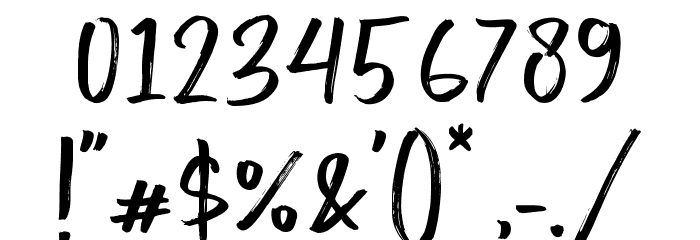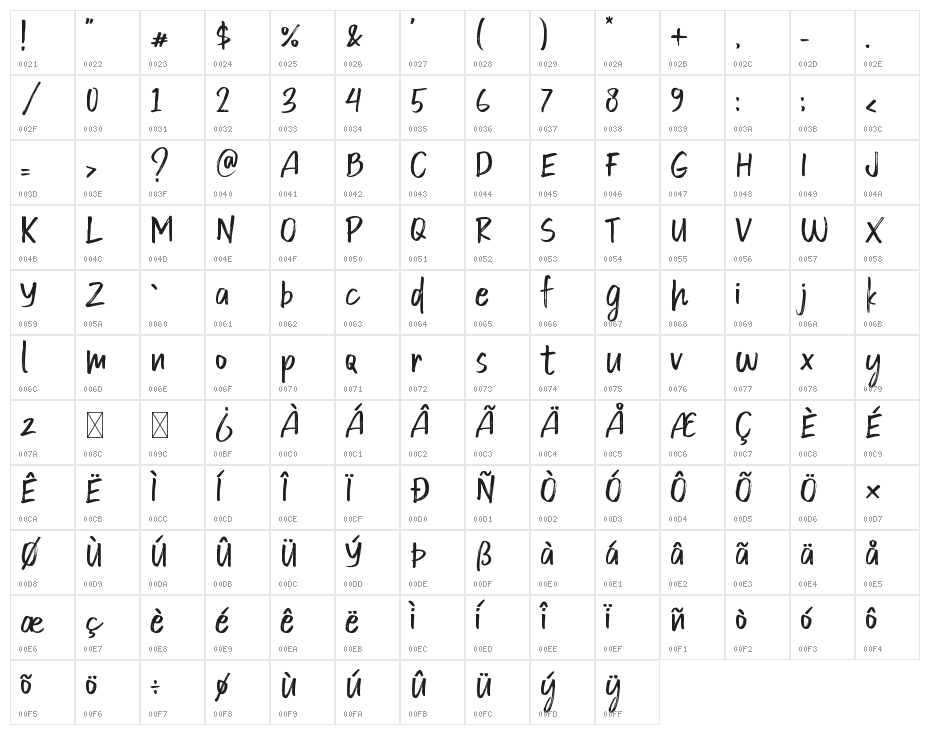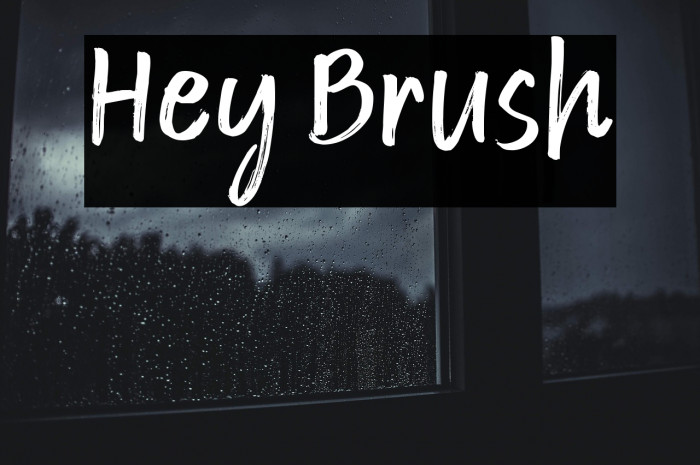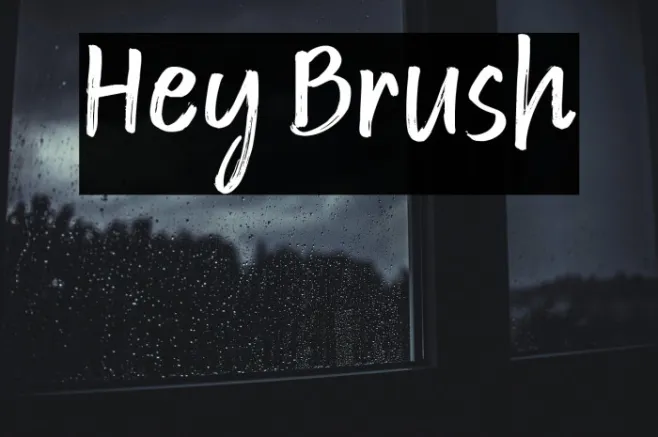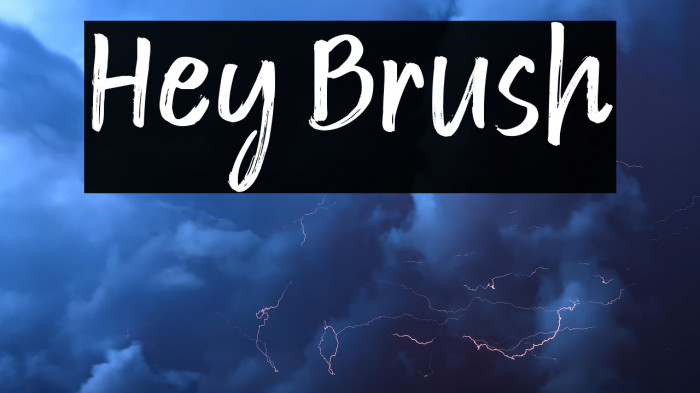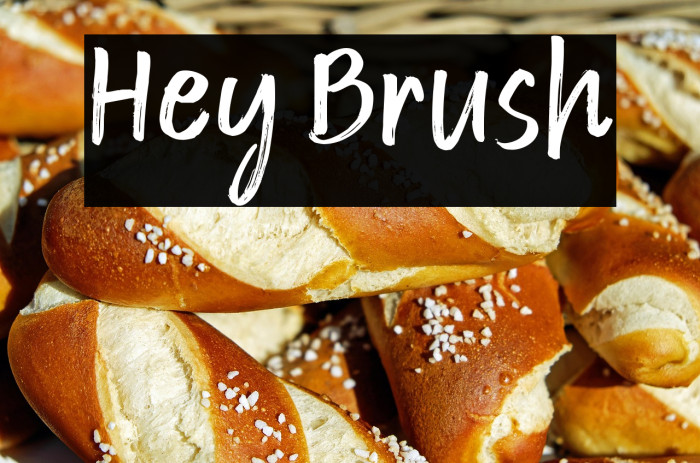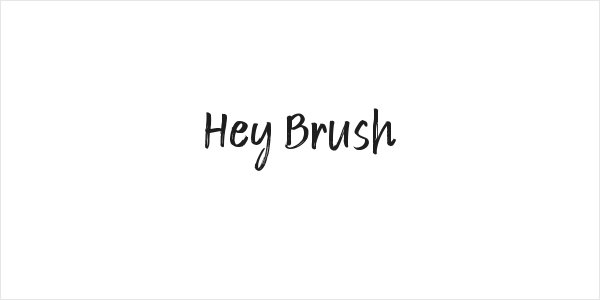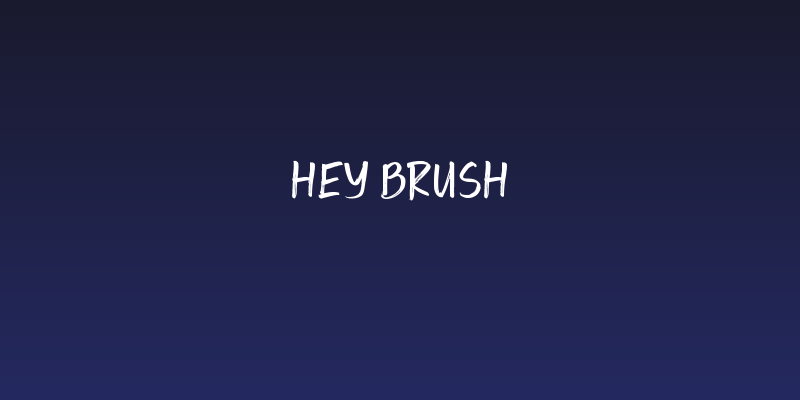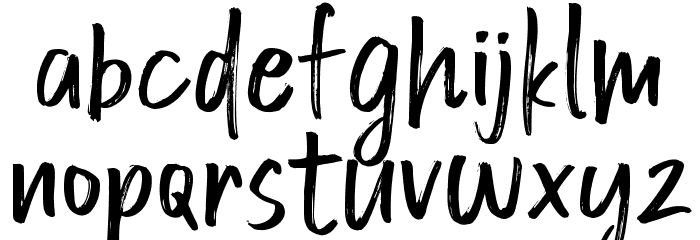
Hey Brush Font
Hey Brush Description
This font exudes a bold, energetic style with its brush-like strokes that give it a hand-painted appearance. The characters are dynamic and slightly irregular, adding a sense of movement and personality. The uppercase and lowercase letters maintain a consistent style, with the uppercase being slightly more structured. Numbers and special characters are crafted with the same lively brush effect, ensuring a cohesive look across all elements. The font's playful and artistic nature makes it ideal for creative projects that require a personal touch.
| Proposed Projects | Ideal for posters, branding, social media graphics, and creative invitations. |